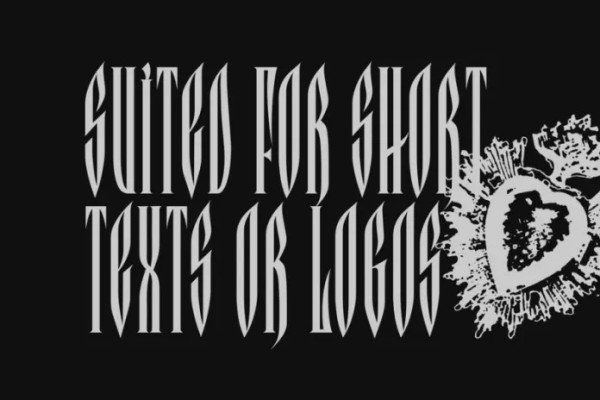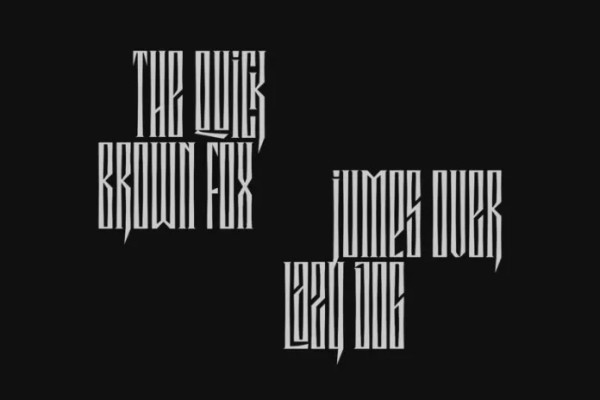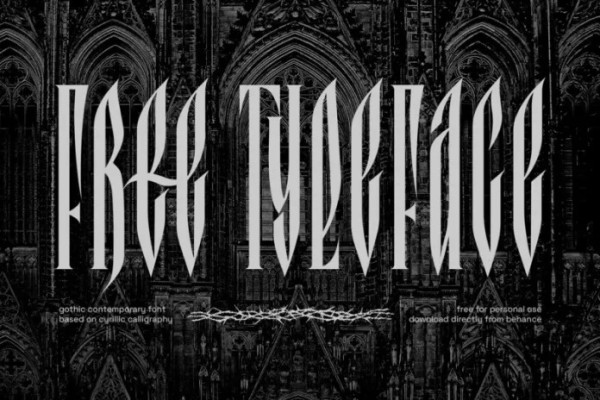
Scriptura Font
Scriptura Font is a mesmerizing decorative uppercase font designed to bring your logos to life. Each capital letter is meticulously crafted to embody the essence of mystical aesthetics, allowing you to create stunning and unique logos that capture attention and leave a lasting impression. Unleash the power of Anima and elevate your brand with its captivating charm and timeless appeal.